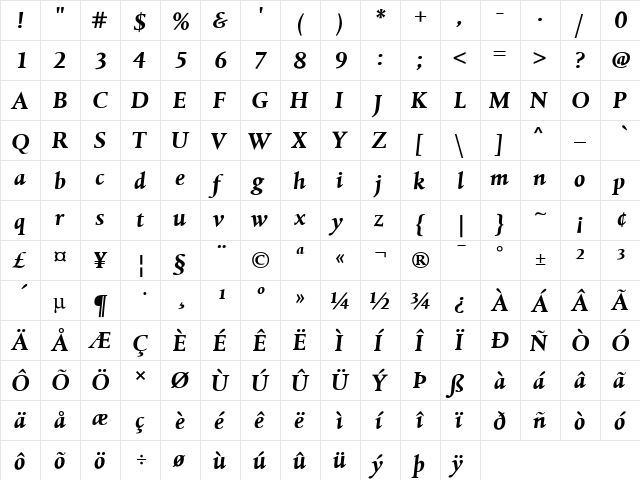
DTLAlbertinaT ItalicBold
Design Context for DTLAlbertinaT Typeface
DTLAlbertinaT is a composed and adaptable typeface that performs quietly and consistently across a wide range of design contexts. Its italic angle brings a sense of urgency and motion to the letterforms. The heavy weight commands attention and anchors typographic hierarchies.
Pro Tip: Use DTLAlbertinaT for emphasis, pull quotes, and subheadings where its slanted energy can add rhythm to the layout.